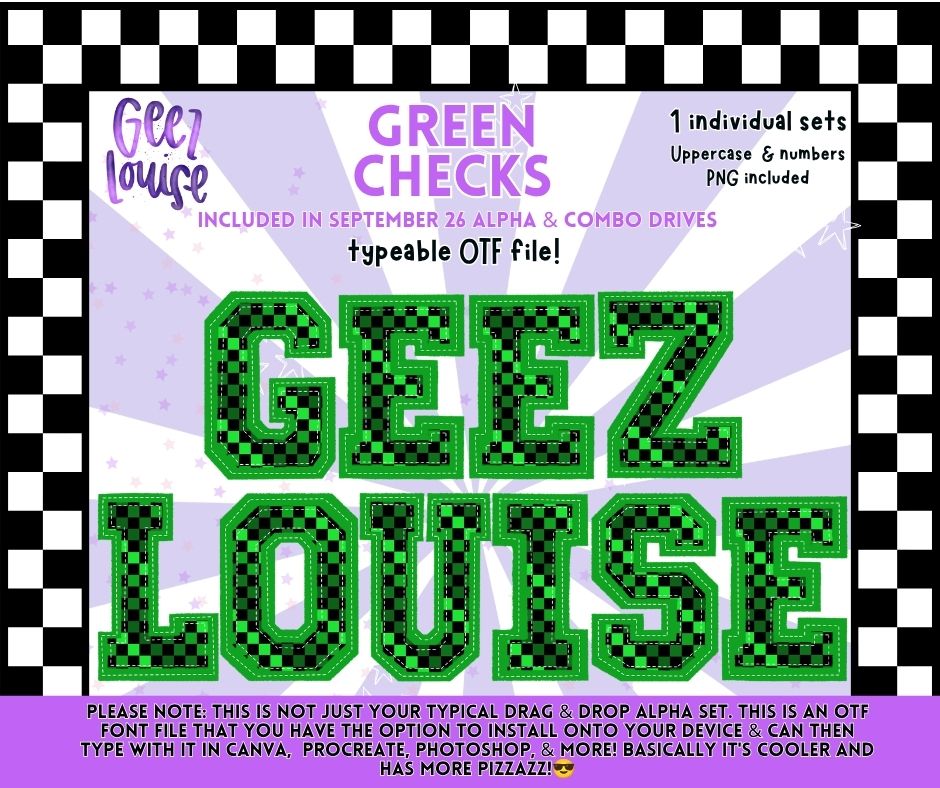
Green Checks OTF Alpha | Green & Black Checkered Varsity Font | Uppercase Letters & Numbers
Bold green + black checks with a sporty varsity vibe. 💚🖤🏁
Green Checks is a bold varsity-style alpha featuring a green and black checkered fill, layered green detailing, and stitched-style accents. This one goes beyond a traditional drag-and-drop alpha because it also includes a typeable OTF font. Install it on your device and type away!